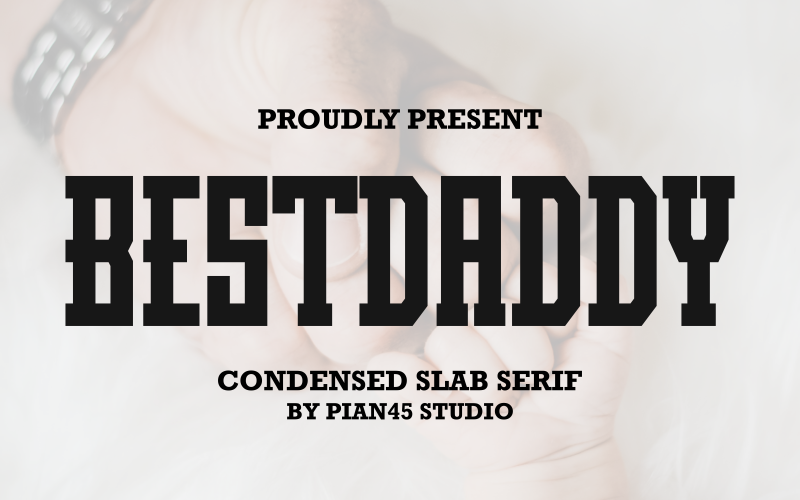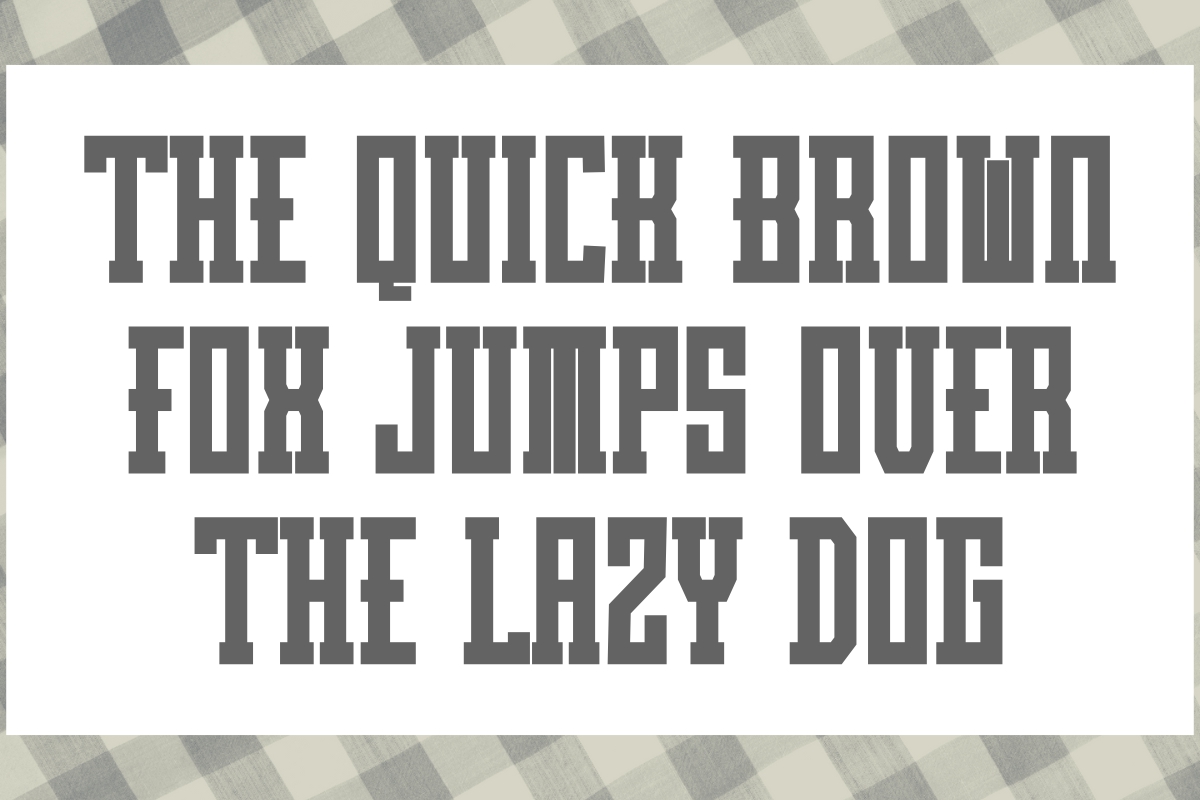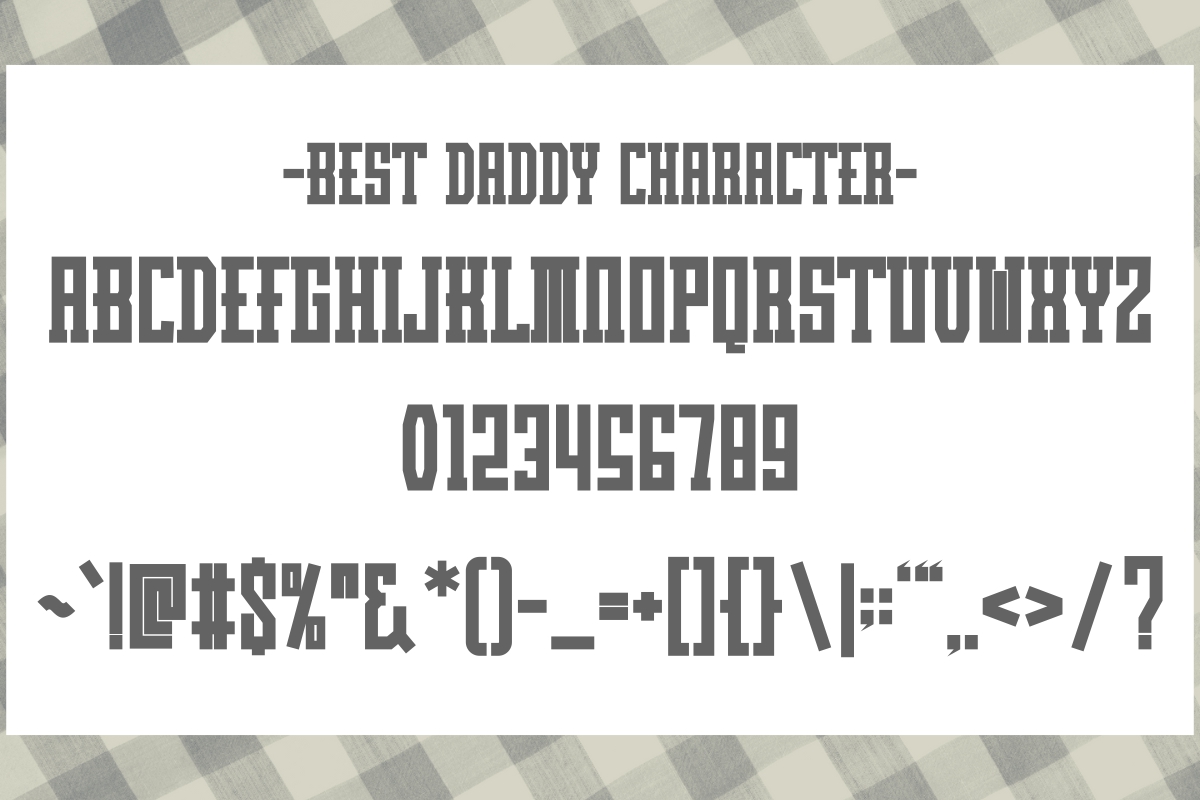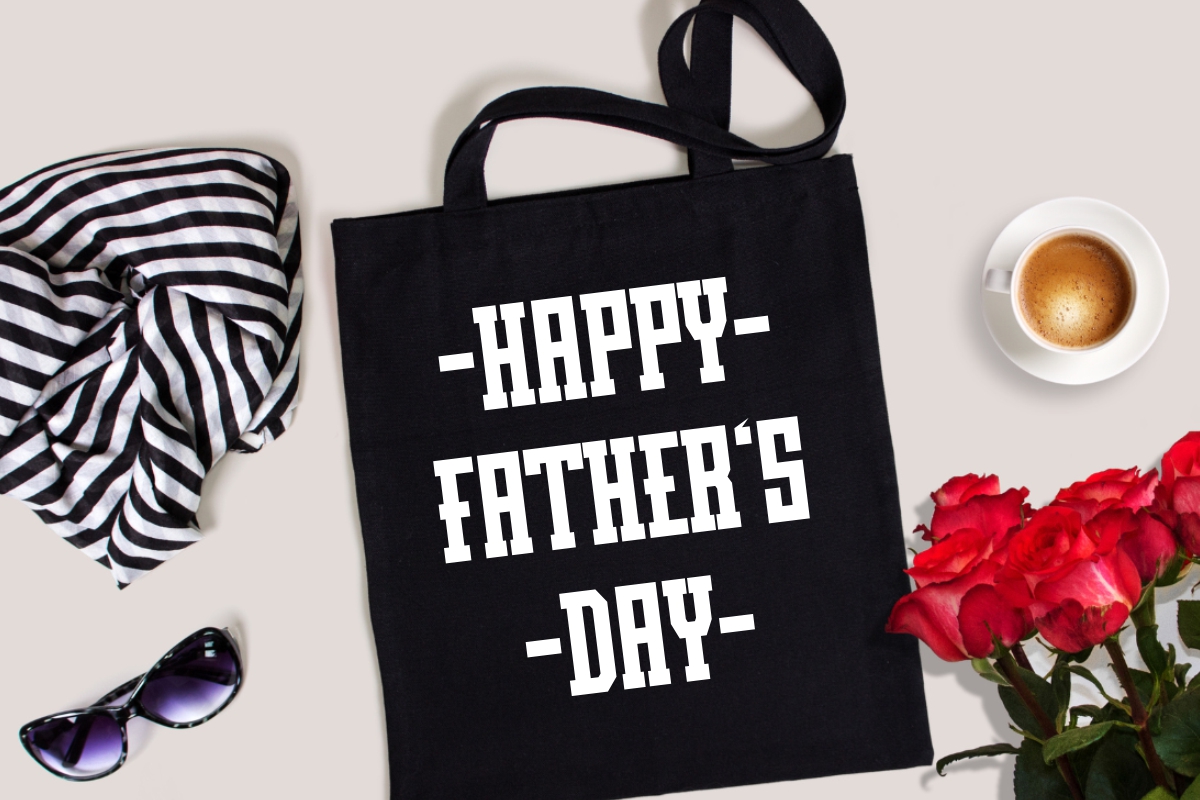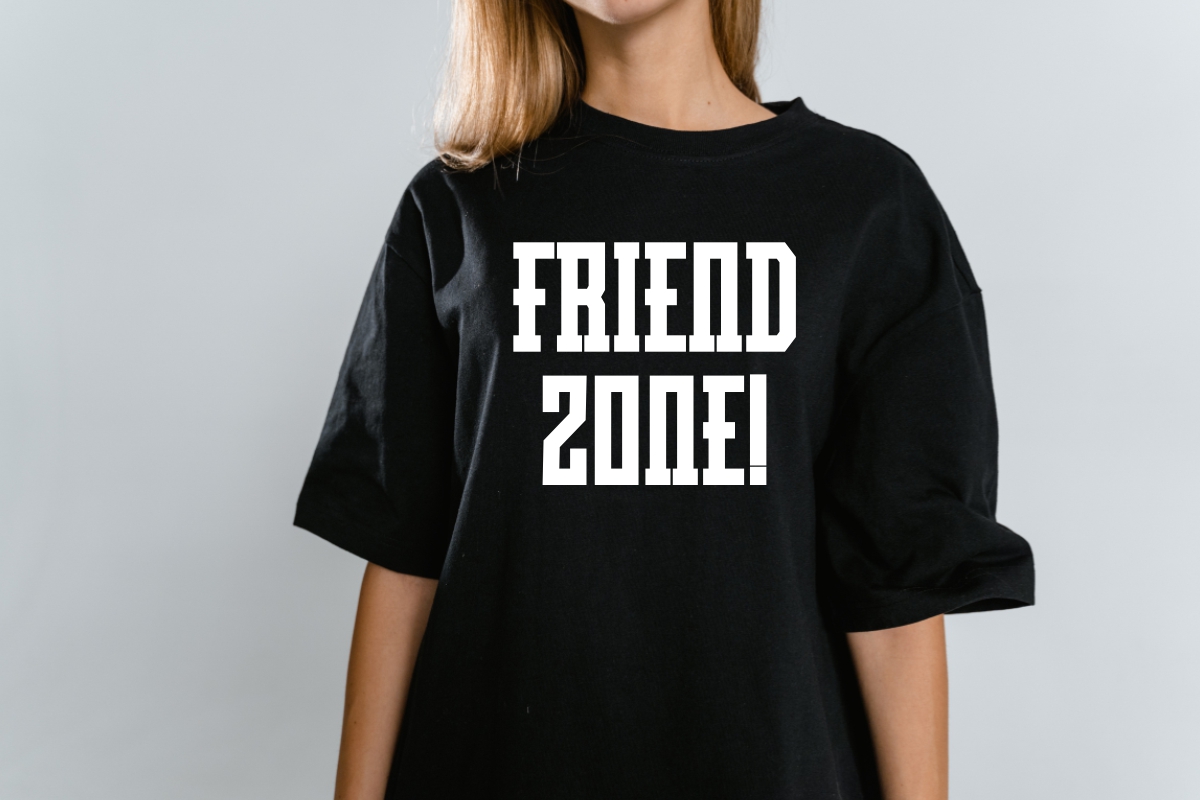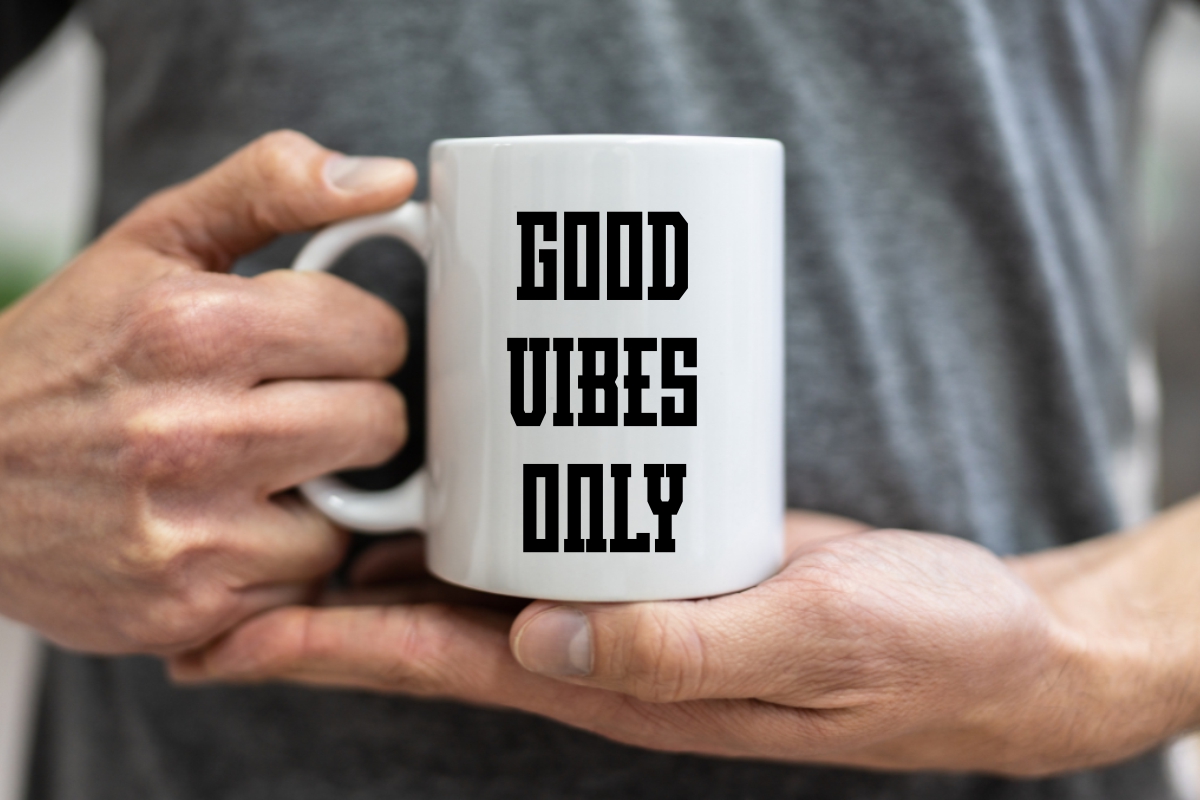
Best Daddy - Condensed Slab Serif Font
Best Daddy is a robust and classic condensed slab serif font that embodies strength, heritage, and vintage collegiate style. Its powerful, all-caps letterforms feature solid block serifs and a tight vertical structure, giving it an undeniable sense of authority and reliability. This typeface is perfect for sports branding, academic apparel, merchandise, masculine designs, posters, and any project that requires a tough, traditional, and memorable aesthetic with a retro athletic feel. Best Daddy makes any headline look instantly established and commanding.